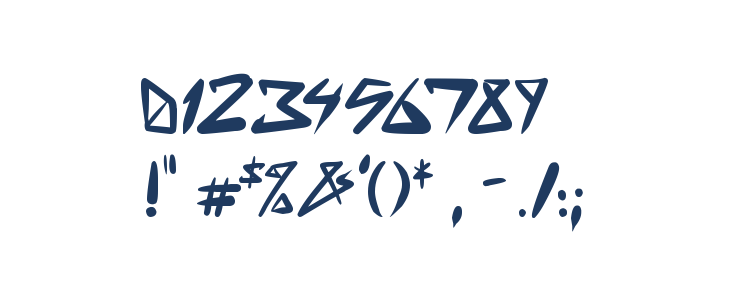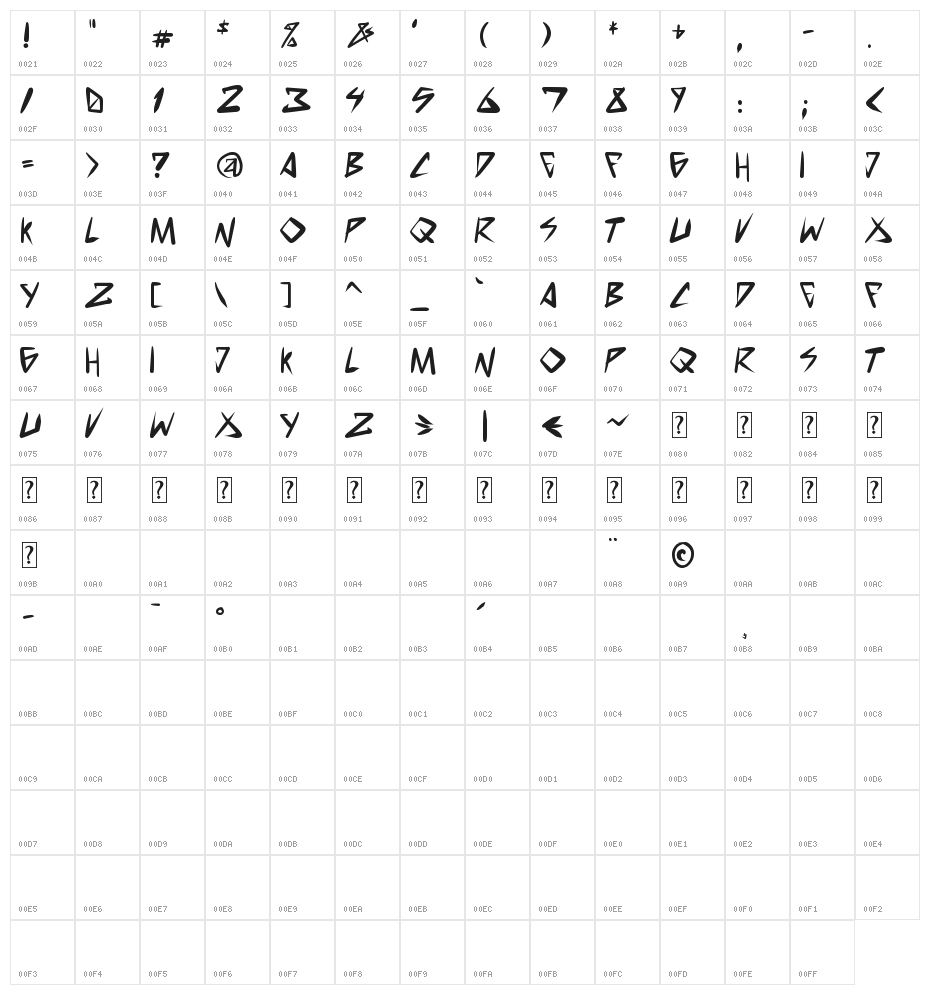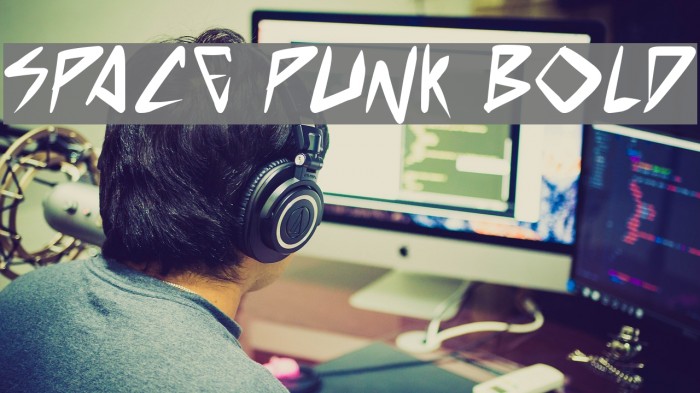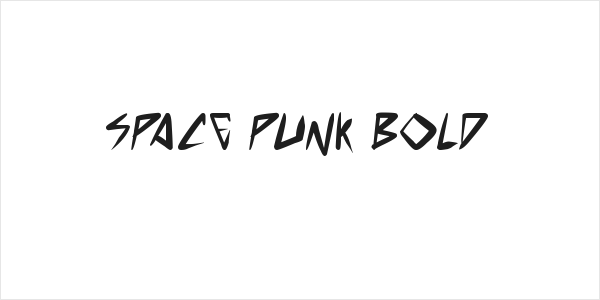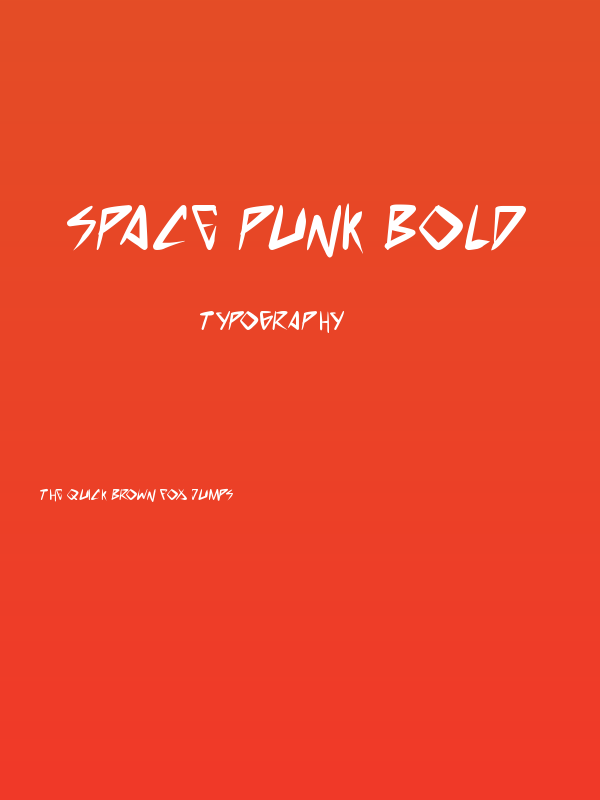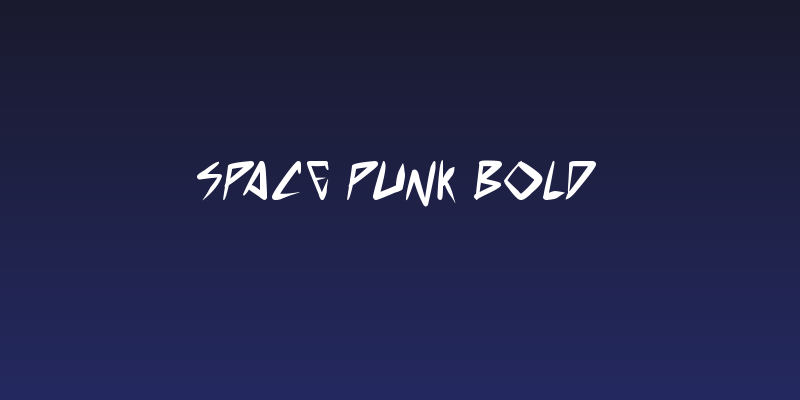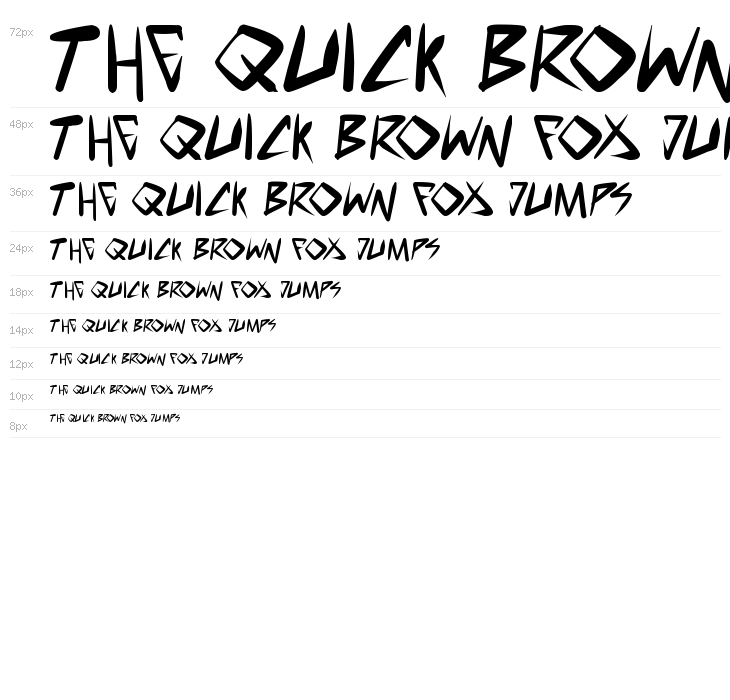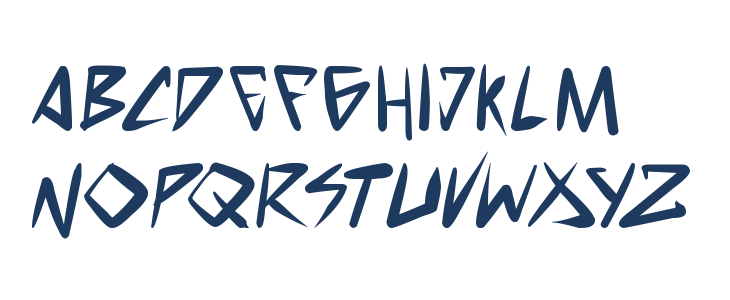
space punk Bold Font
space punk Bold Description
This font features a bold and dynamic style with sharp, angular lines that convey a futuristic and edgy aesthetic. The characters are designed with a sense of movement and energy, making them stand out with their unique geometric shapes. The uppercase and lowercase letters maintain a consistent style, while the numbers and special characters complement the overall design. This font's boldness is emphasized by its thick strokes and high contrast, creating a striking visual impact. The character spacing is relatively tight, enhancing the compact and cohesive appearance of the text.